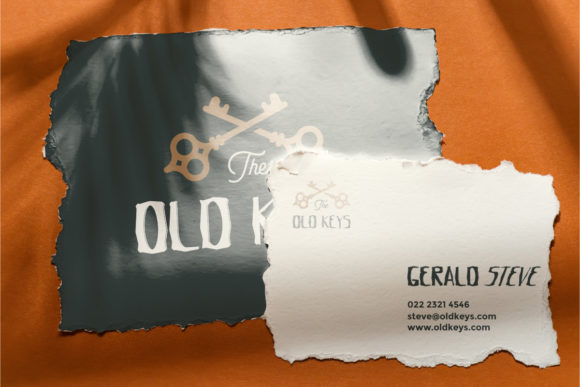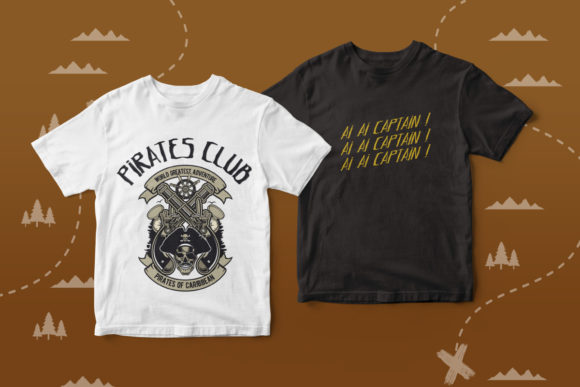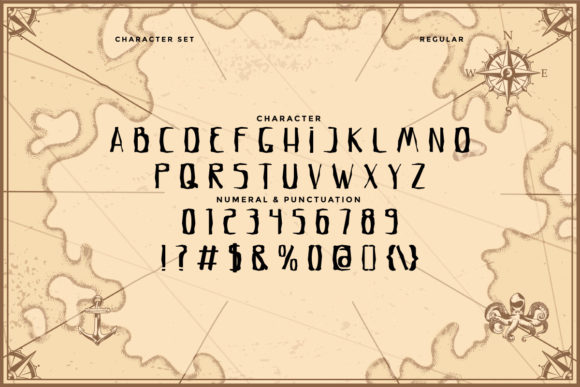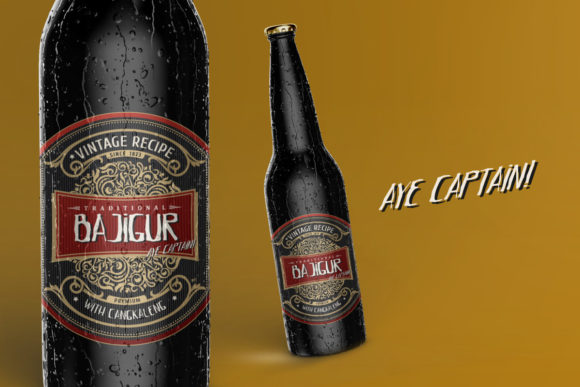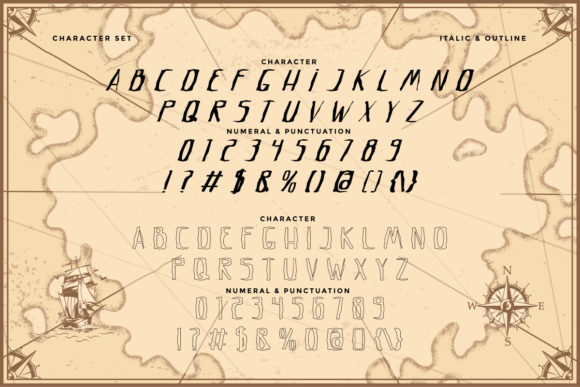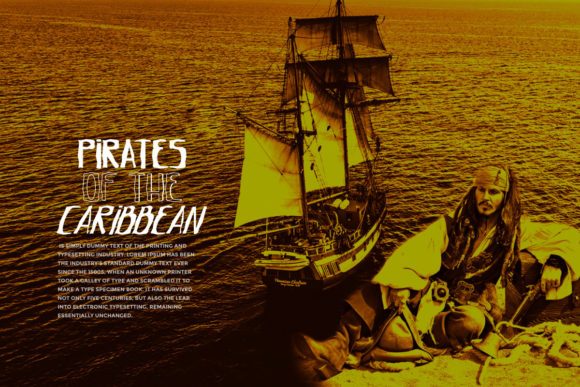
Crumpled Letter Font: Elevate Your Designs with a Vintage Twist
Are you tired of using the same old fonts in your designs? Look no further than the Crumpled Letter Font, a unique display font that adds a touch of vintage charm to any project. With five great styles to choose from, this font is perfect for designers and crafters looking to add a personal touch to their work.
Inspired by Vintage Classic Lettering
The Crumpled Letter Font is inspired by the classic lettering of the past, with a distressed look that gives it a worn, crumpled appearance. This font is perfect for creating eye-catching headlines, logos, and titles that are sure to stand out. Whether you’re working on a wedding invitation, a fashion brand, or an outdoor adventure project, the Crumpled Letter Font is sure to add a touch of elegance and sophistication.
Five Great Styles to Choose From
One of the best things about the Crumpled Letter Font is that it comes in five great styles, giving you plenty of options to choose from. Whether you’re looking for a bold and dramatic font or a more subtle and understated one, the Crumpled Letter Font has got you covered. The five styles include:
- Regular: The classic crumpled letter style
- Bold: A thicker, more dramatic version of the font
- Italic: A slanted version of the font for added flair
- Script: A more cursive version of the font for a personal touch
- Distressed: A heavily worn and distressed version of the font for a vintage look
The Crumpled Letter Font is perfect for a wide range of projects, including:
- Events and weddings: Add a touch of elegance to your wedding invitations, programs, and other event materials
- Branding: Create a unique and memorable brand identity with the Crumpled Letter Font
- Artist and make-up: Add a touch of glamour to your artist or make-up portfolio
- Outdoor and adventure: Use the Crumpled Letter Font to create bold and eye-catching headlines for your outdoor and adventure projects
- Fashion products: Add a touch of sophistication to your fashion products with the Crumpled Letter Font
Key Features of the Crumpled Letter Font
The Crumpled Letter Font has a number of key features that make it perfect for designers and crafters, including:
- Unique and distressed design
- Five great styles to choose from
- Perfect for headlines, logos, posters, titles, and products
- Works well for events, weddings, branding, artist, make-up, outdoor, and fashion projects
- Easily customizable
Tips for Using the Crumpled Letter Font
Here are a few tips for getting the most out of the Crumpled Letter Font:
- Use it sparingly: The Crumpled Letter Font is a bold and eye-catching font, so use it sparingly to avoid overwhelming your design
- Experiment with different styles: Try out different styles of the font to see which one works best for your project
- Pair it with other fonts: The Crumpled Letter Font works well with other fonts, so try pairing it with a simpler font for added contrast
- Use it for headlines: The Crumpled Letter Font is perfect for headlines and titles, so use it to add a touch of drama and flair to your design